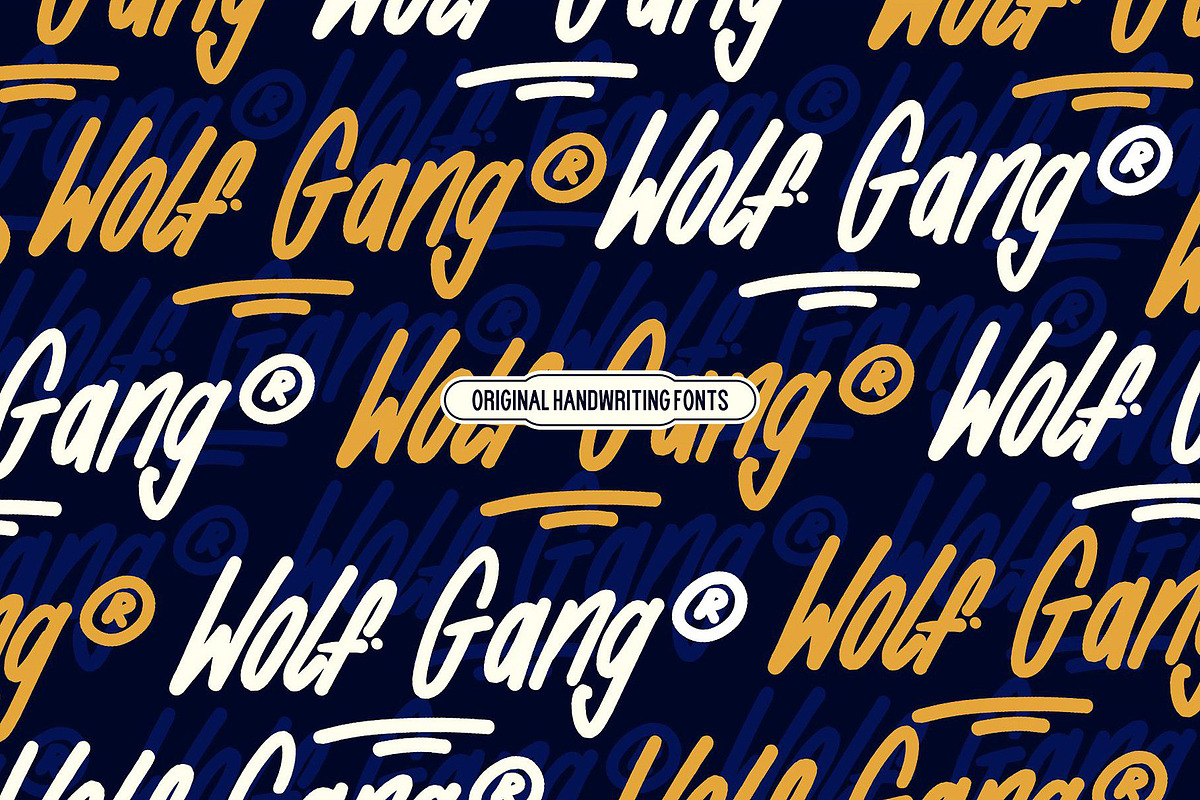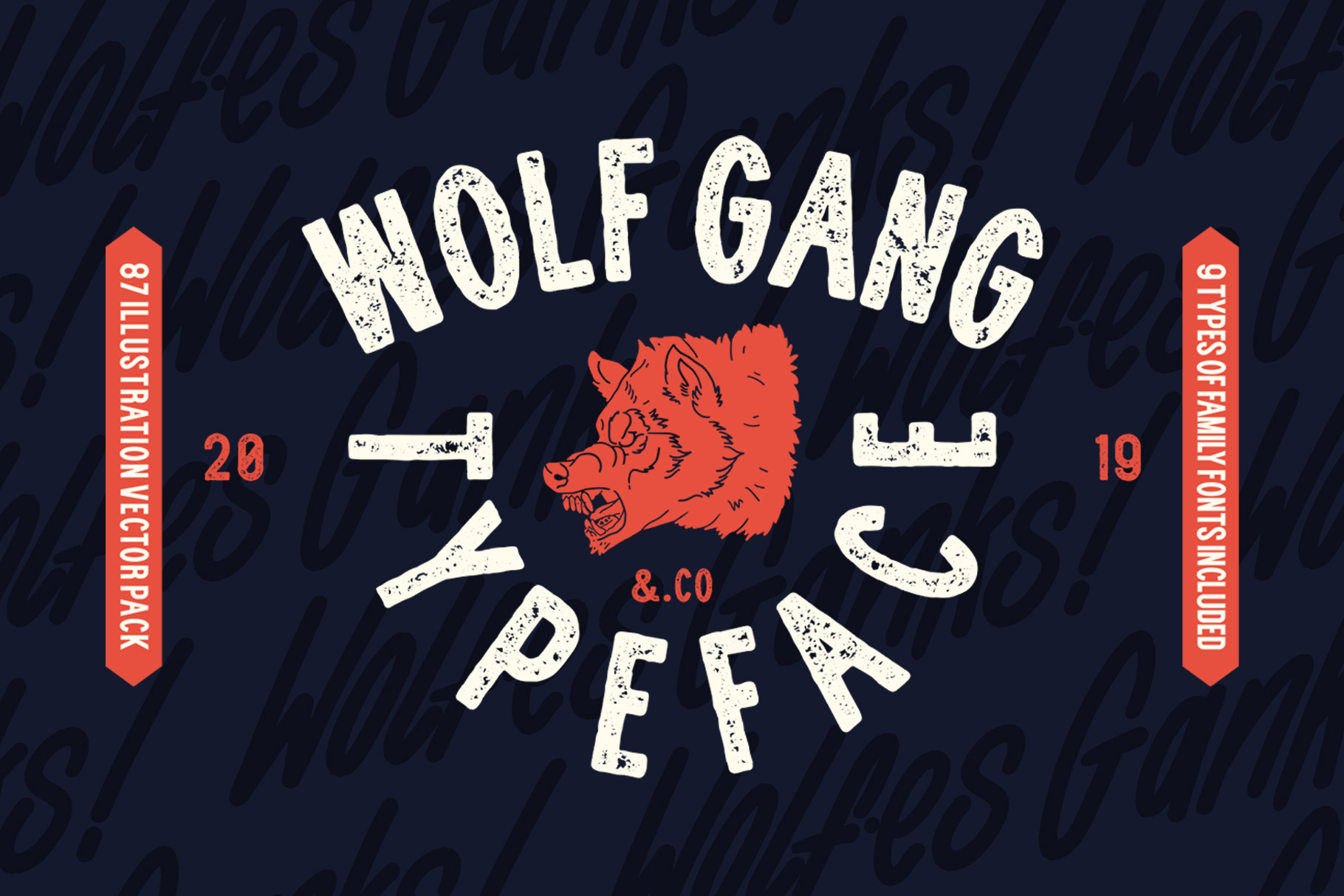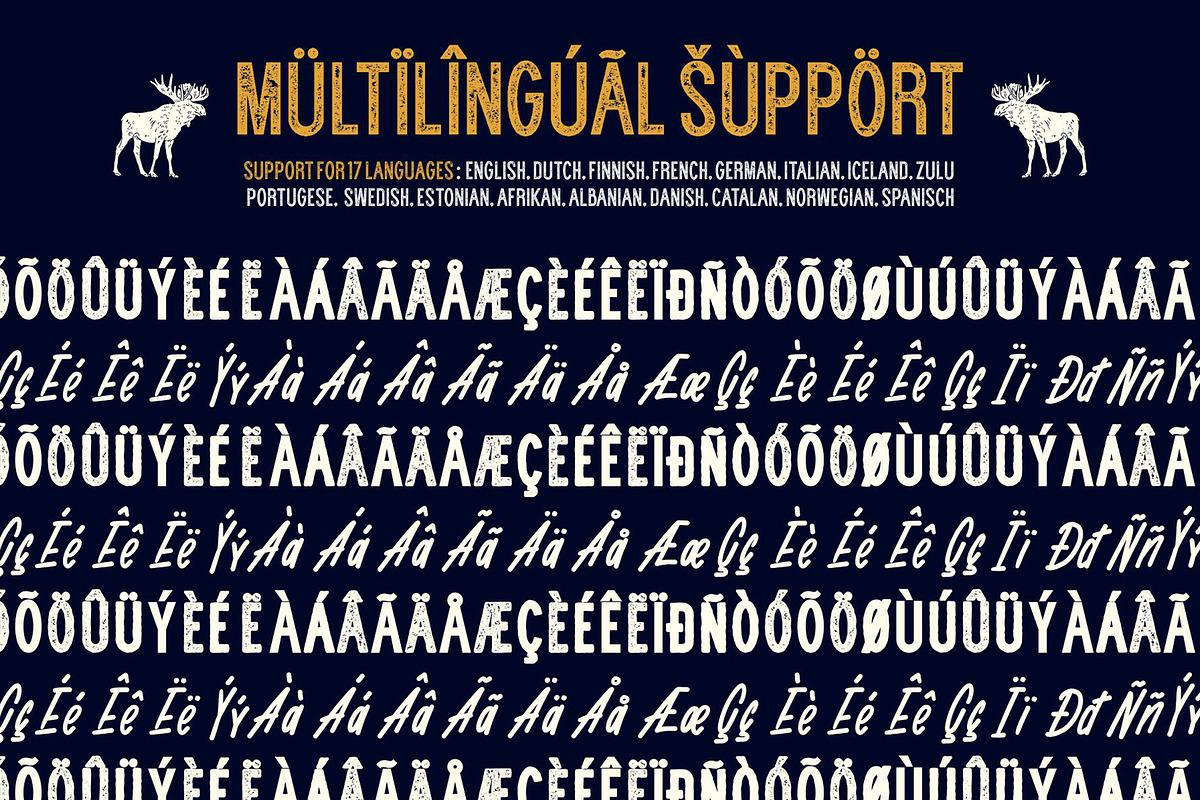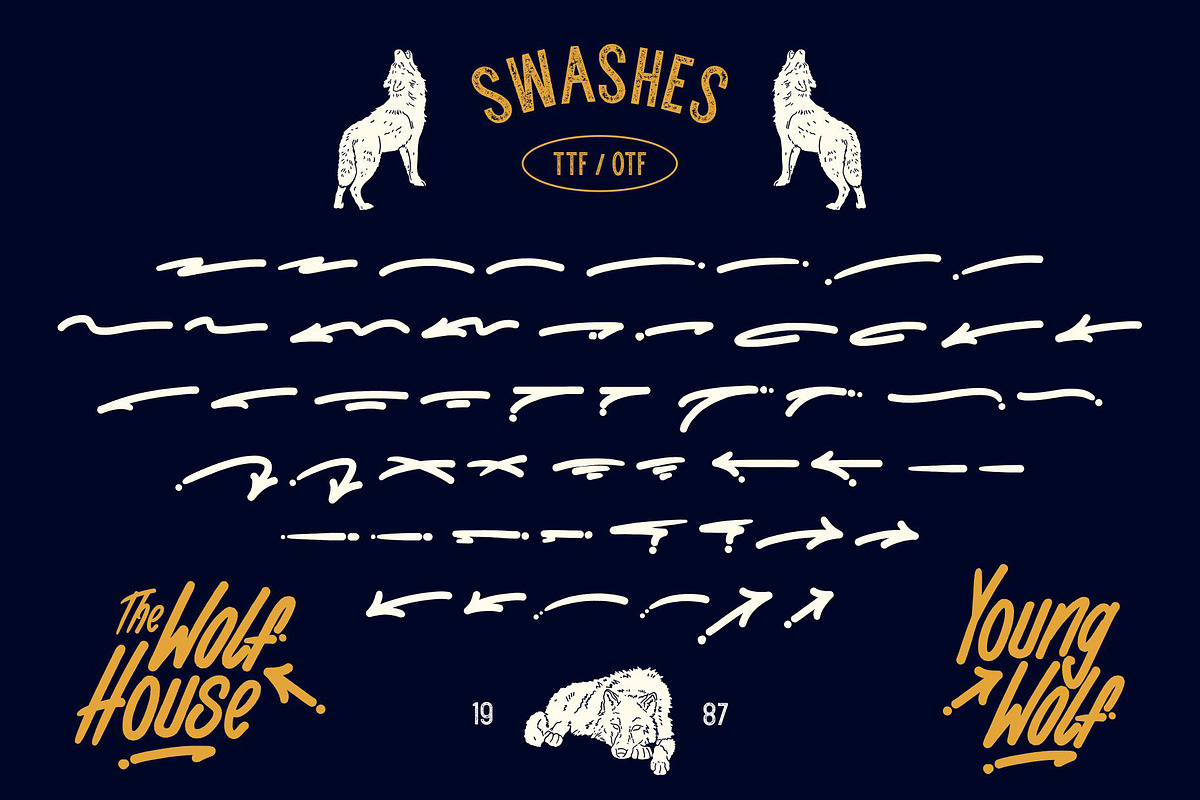
Wolf Gang - Vintage Typeface
WOLF GANG is one of the fonts that I made with the concept of the wild, by adding pictorial elements like wolves and other wild life, making this font have a soul in it. make your best design with this font for any purpose, such as t-shirts, logos, poster designs, magazines, signs, and more.